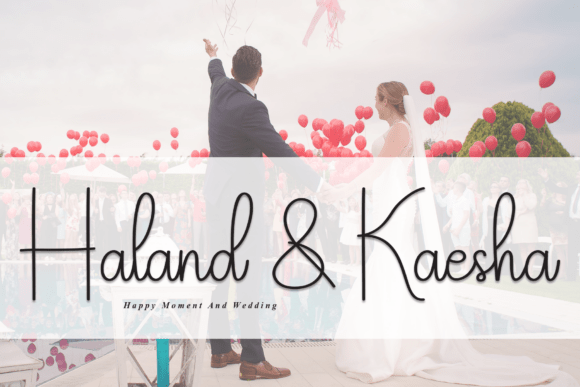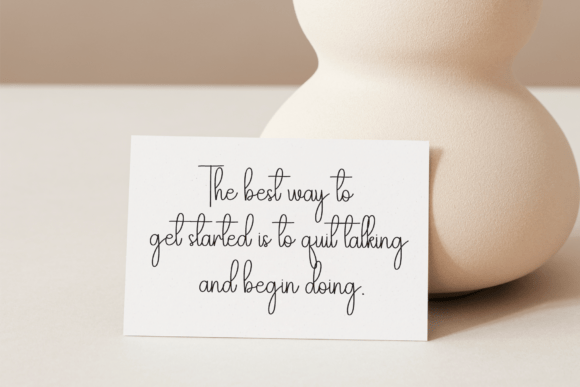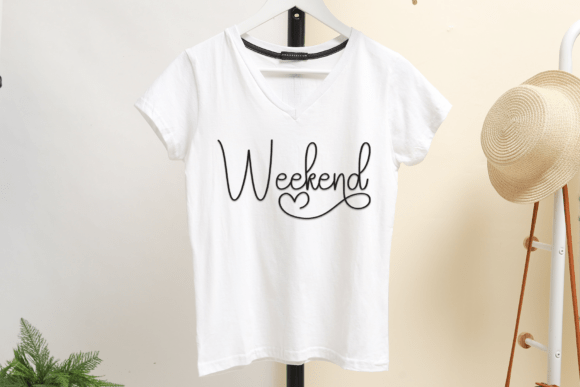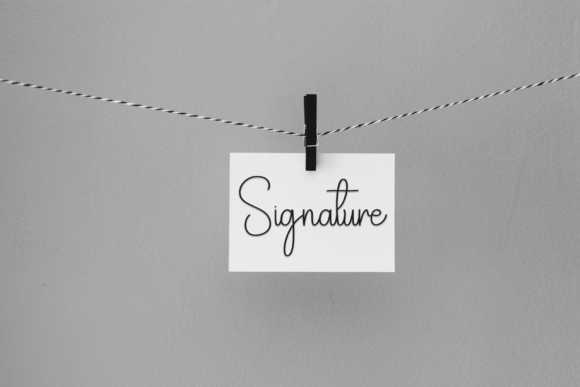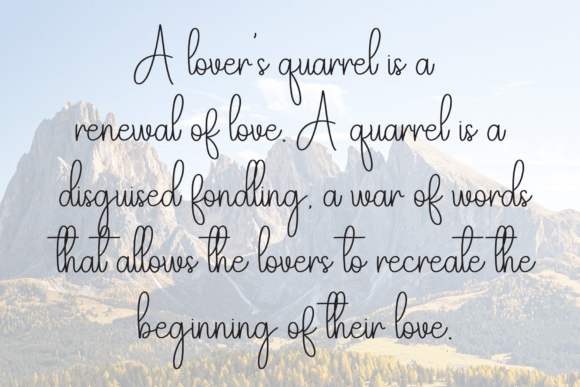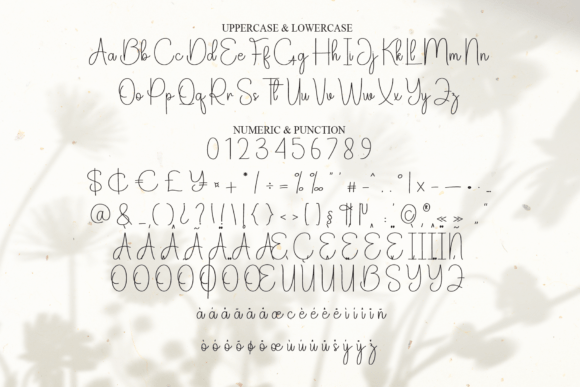
Introducing Anastasia Font: Elevate Your Designs with Elegance and Fluidity
In the world of typography, few fonts manage to capture the essence of elegance and sophistication as effortlessly as Anastasia. This stunning handwritten script font is designed to bring a touch of refinement and fluidity to any design project. Whether you’re working on branding, invitations, or creative endeavors, Anastasia is the perfect choice for those seeking a typeface that exudes charm and modernity.
The Characteristics of Anastasia Font
Anastasia is distinguished by its smooth, flowing strokes that create a natural and sophisticated feel. The font’s elegant curves and refined lines make it an excellent choice for designs that require a high level of sophistication. The fluidity of Anastasia’s strokes gives it a dynamic and artistic appearance, setting it apart from more traditional typefaces.
Perfect for Branding and Creative Projects
Anastasia’s unique blend of charm and modernity makes it an ideal choice for branding projects. The font’s elegant appearance can help elevate a brand’s visual identity, adding a touch of sophistication and refinement. Additionally, Anastasia’s artistic feel makes it perfect for creative projects such as invitations, greeting cards, and other design endeavors where a personal touch is desired.
Key Features of Anastasia Font
- Elegant Handwritten Script: Anastasia boasts a beautiful, flowing script that adds a touch of elegance to any design.
- Smooth Flowing Strokes: The font’s smooth strokes create a natural and sophisticated feel, perfect for high-end designs.
- Balanced Charm and Modernity: Anastasia strikes the perfect balance between charm and modernity, making it suitable for a wide range of design projects.
- Artistic and Personal Touch: The font’s artistic feel adds a personal touch to any design, making it ideal for creative projects.
Tips for Using Anastasia Font Effectively
To get the most out of Anastasia, consider the following tips:
- Pair with Neutral Fonts: Anastasia’s elegance shines when paired with neutral fonts. Consider combining it with sans-serif fonts for a balanced look.
- Use for Headings and Titles: Anastasia’s artistic feel makes it perfect for headings and titles. Use it to add a touch of sophistication to your designs.
- Experiment with Colors: Anastasia looks stunning in a variety of colors. Experiment with different hues to find the perfect match for your design.
Who Can Benefit from Anastasia Font?
Anastasia is an excellent choice for a wide range of designers and crafters, including:
- Graphic Designers: Looking for a sophisticated and elegant font to elevate their branding and creative projects.
- Stationery Designers: Seeking a beautiful and artistic font for invitations, greeting cards, and other stationery designs.
- Branding Experts: Needing a typeface that can help create a refined and sophisticated visual identity for their clients.
- Crafters and DIY Enthusiasts: Looking for a unique and artistic font to add a personal touch to their handmade projects.
Anastasia font is a stunning handwritten script font that radiates elegance and fluidity. Its smooth, flowing strokes create a natural and sophisticated feel, perfect for branding, invitations, and creative projects. With its graceful balance of charm and modernity, Anastasia is an excellent choice for designers and crafters seeking to add a personal, artistic touch to their designs. Whether you’re working on a high-end branding project or a handmade craft, Anastasia is sure to elevate your designs to the next level.